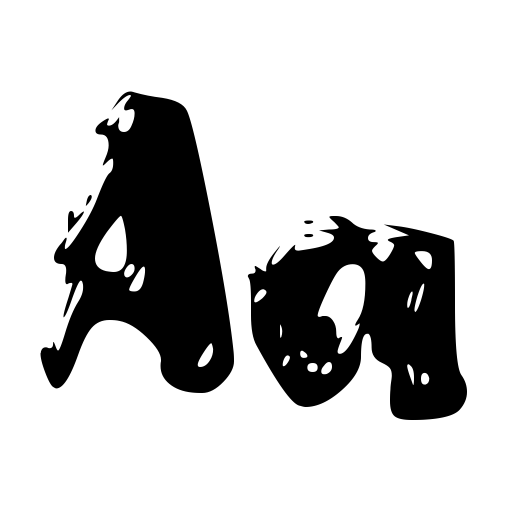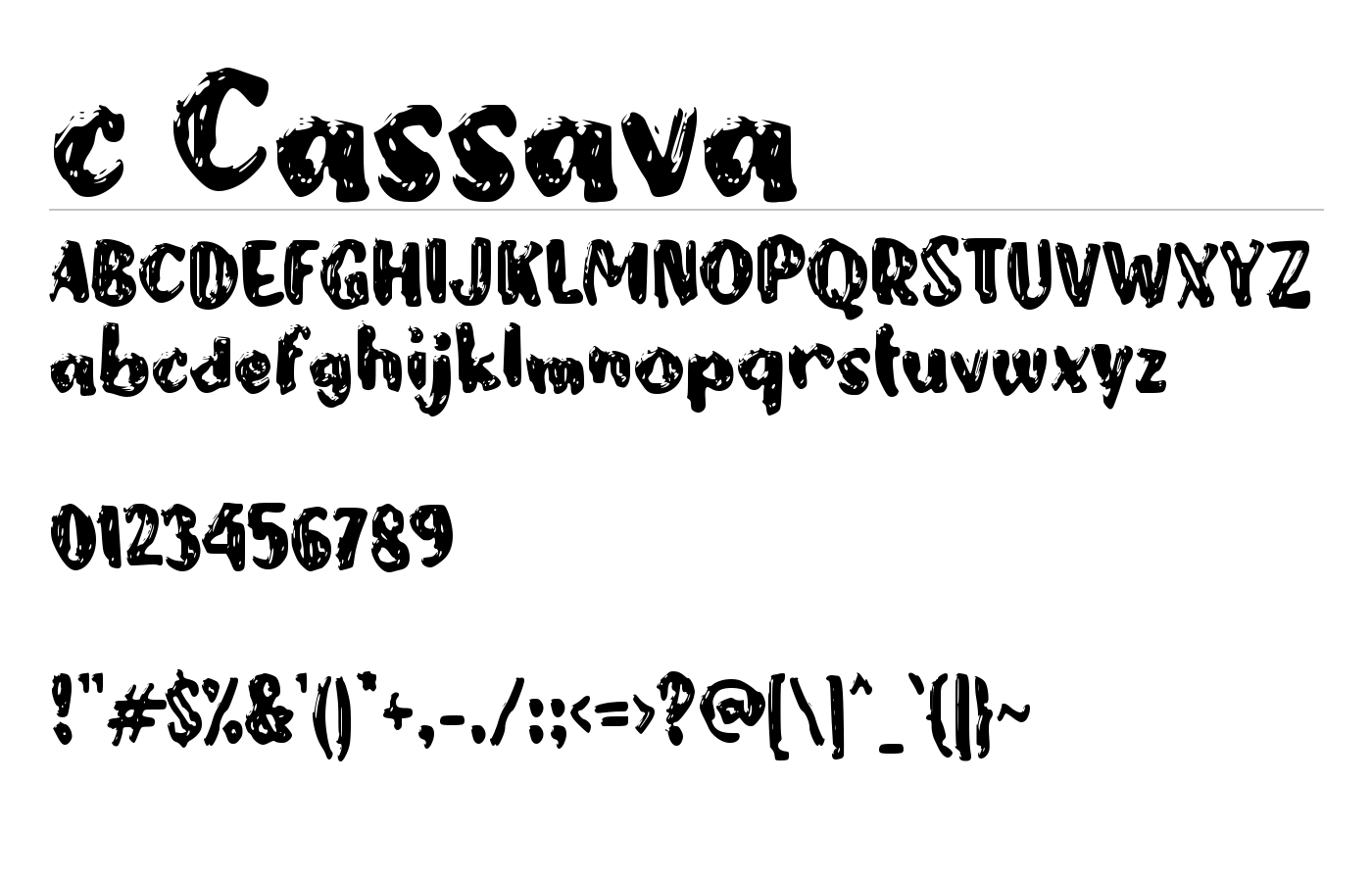
Cassava is a playful, hand-drawn sans serif font with bold, uneven strokes that give it a textured, organic feel. Its irregular shapes and rough edges make it perfect for casual, artistic, or quirky designs that want to stand out with personality. This font works well in posters, packaging, and creative branding where a fun and informal vibe is desired.
c Cassava Font